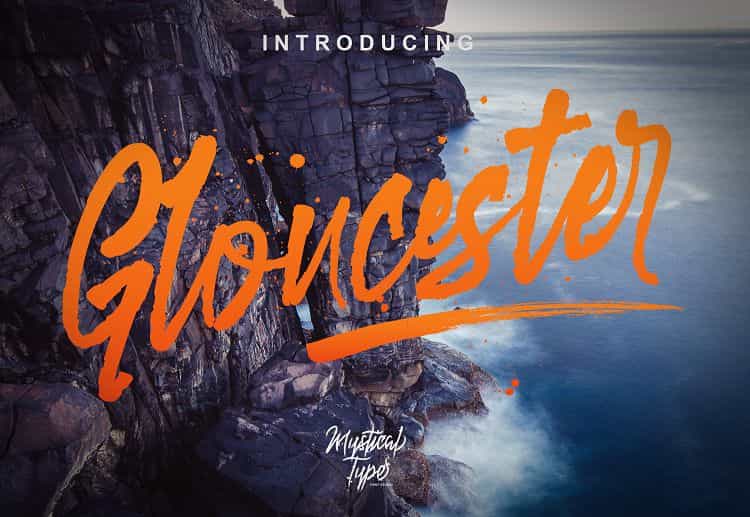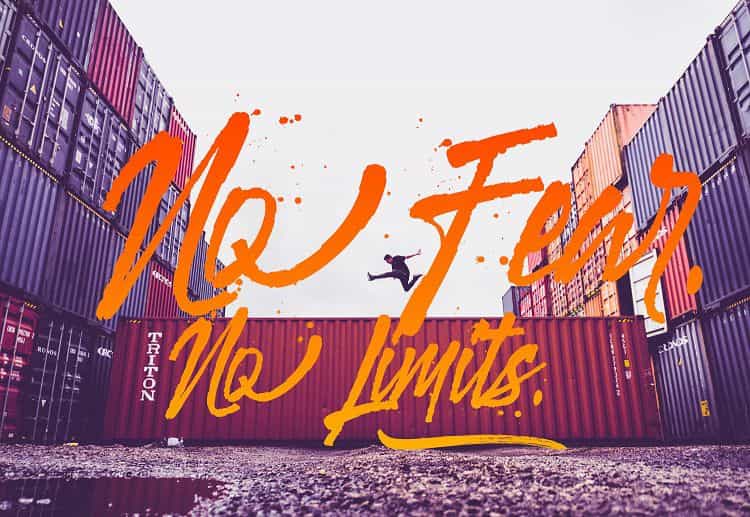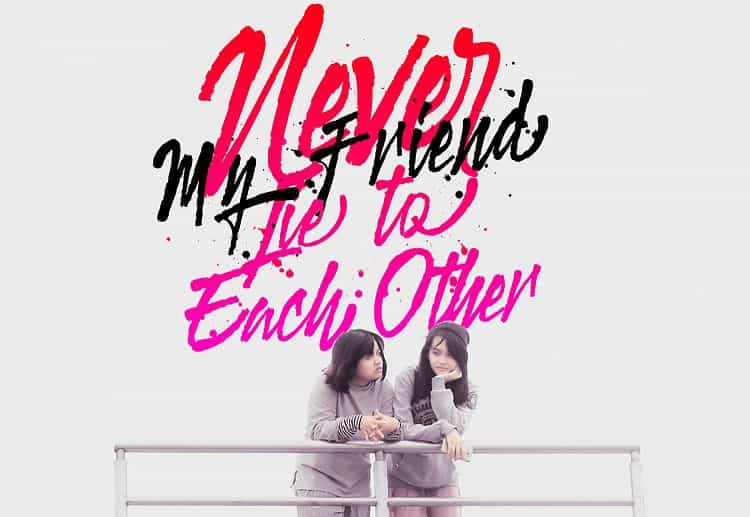
Discover Gloucester Brush Font, part of the Brush collection—a versatile and unique font perfect for adding a personal touch to your projects. Download it for free and enjoy crafting designs with style, from invitations to social media posts. This font is available exclusively for personal use, giving you the freedom to create without limits. Unlock your creativity with Gloucester Brush Font today!
Introducing Gloucester Script Font. The Gloucester is a fantastic brush script. It was handcrafted and brought to life by the contemporary typography. The kit also has a perfectly matched complementary marker font and some very useful bonus swashes.